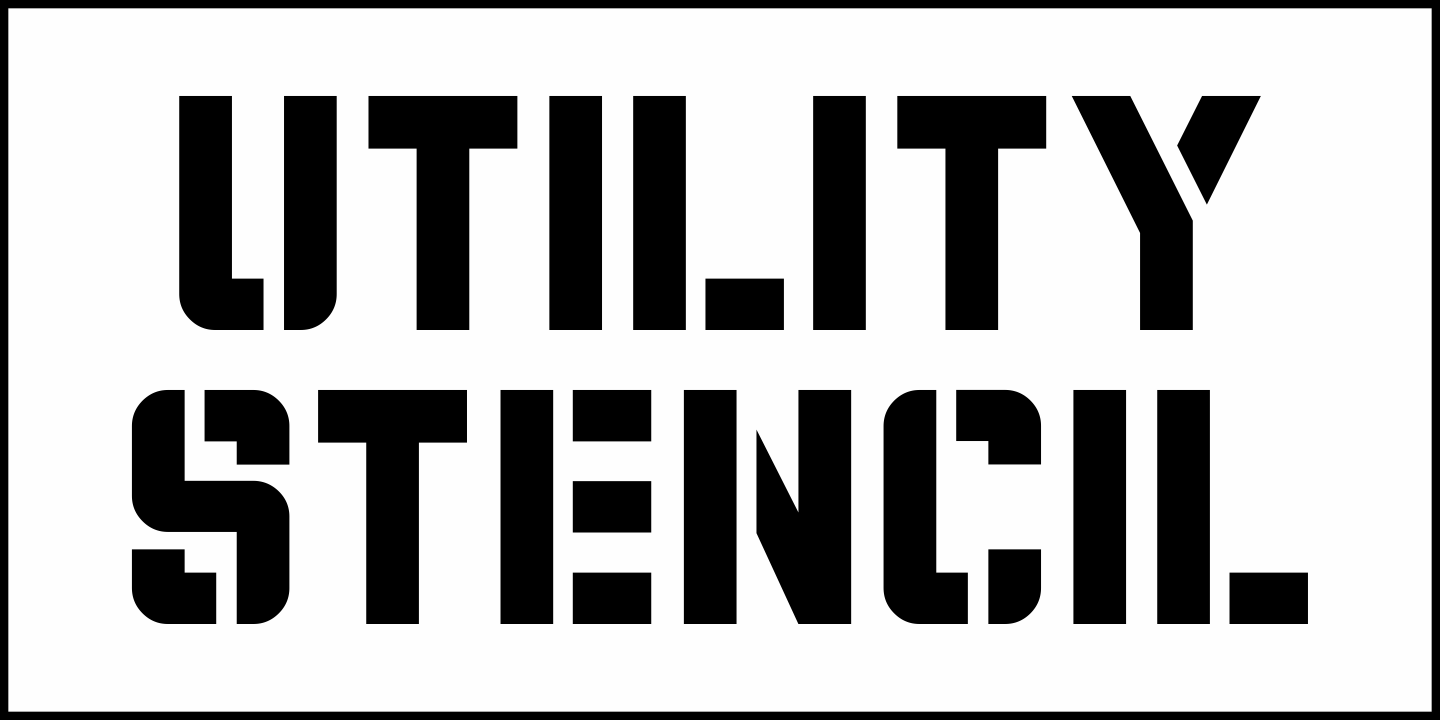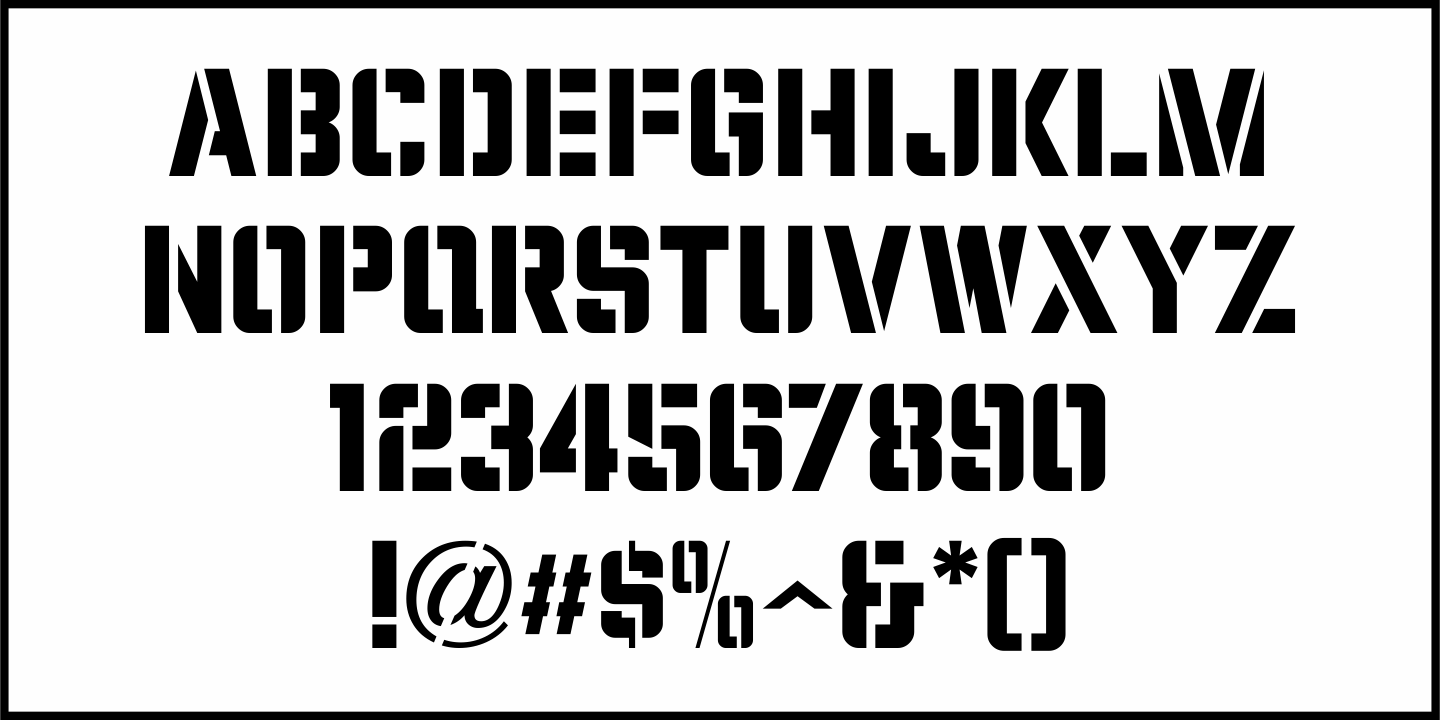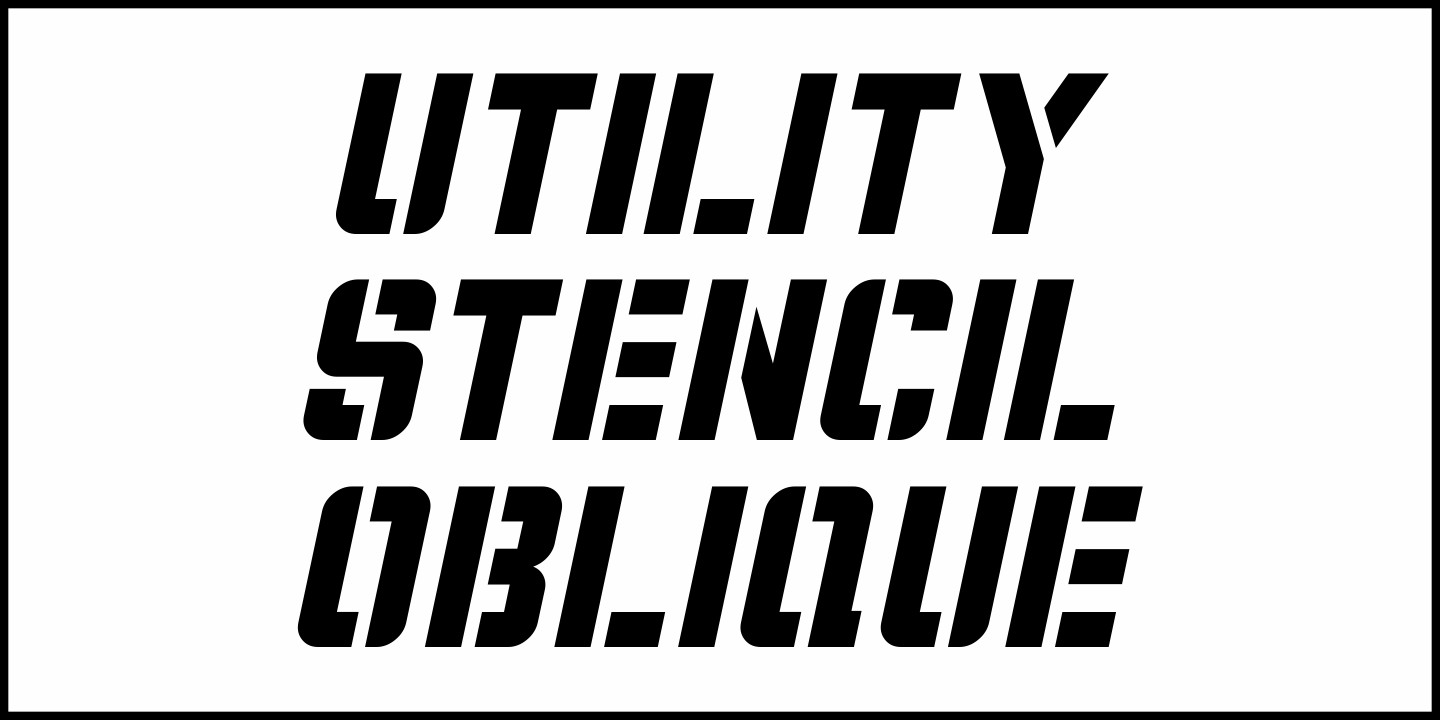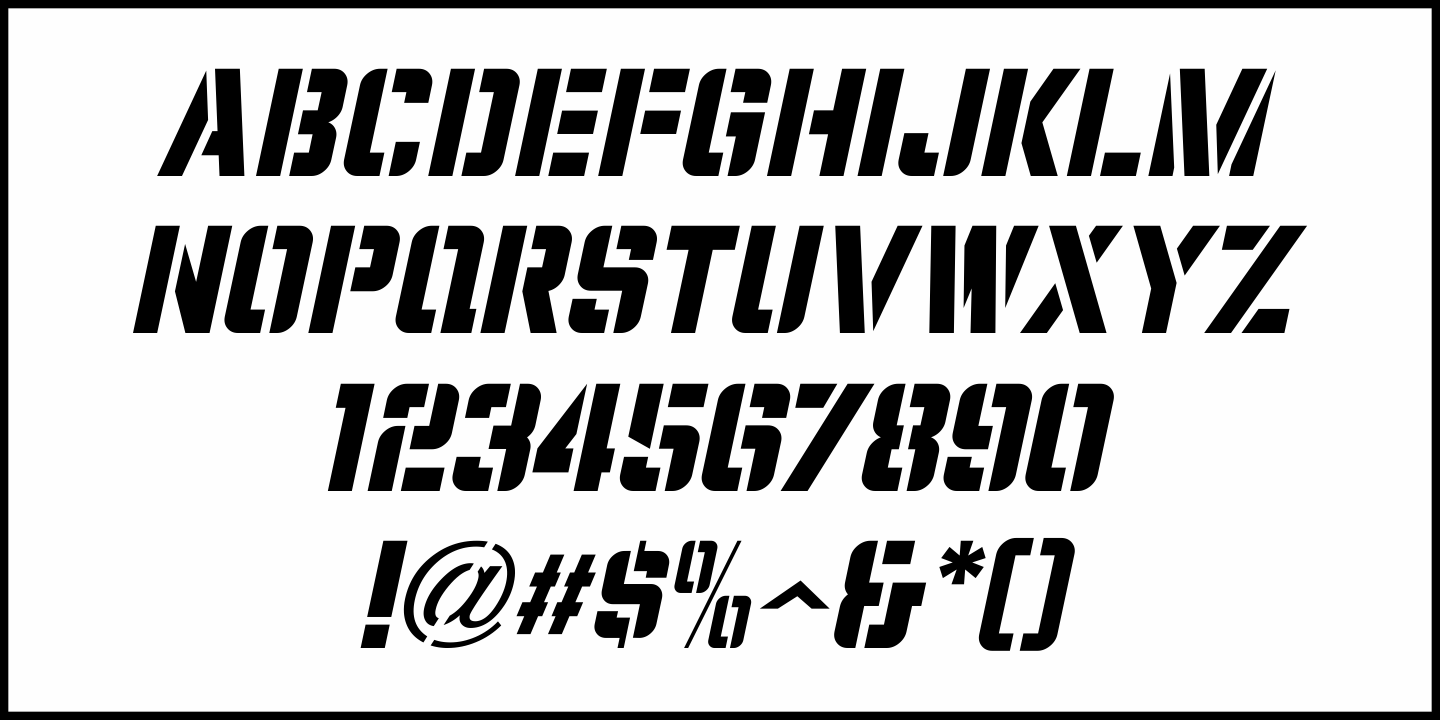
Utility Stencil
A July 9, 1950 newspaper photo showcasing a unique service provided to patrons of the Essex Theater in Hialeah, Florida had the following sign in the storefront window: "A free baby sitter.. while you attend the Essex Theater"
The lettering of the sign was made in a semi-stencil style (a mixture of solid and stenciled characters). For a digital version, all of the characters were given the full stencil treatment.
This is now available as Utility Stencil JNL, in both regular and oblique versions.